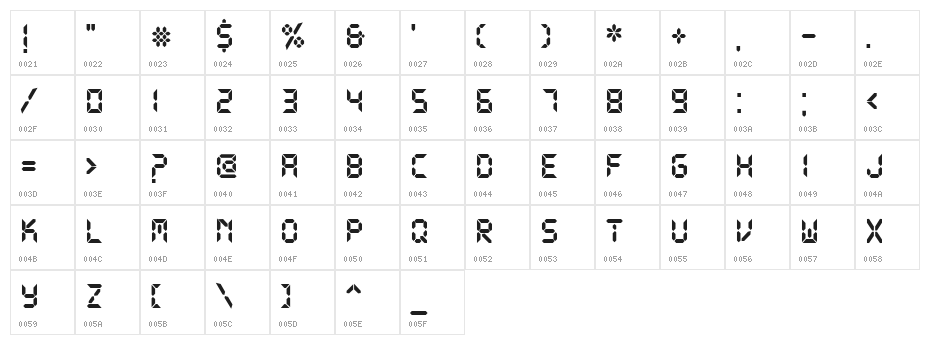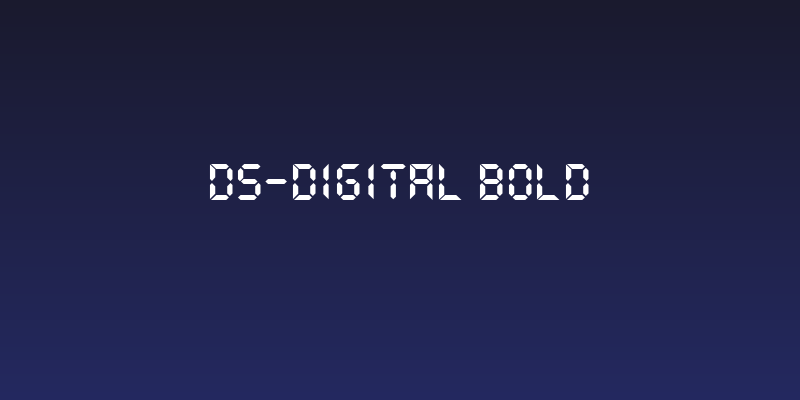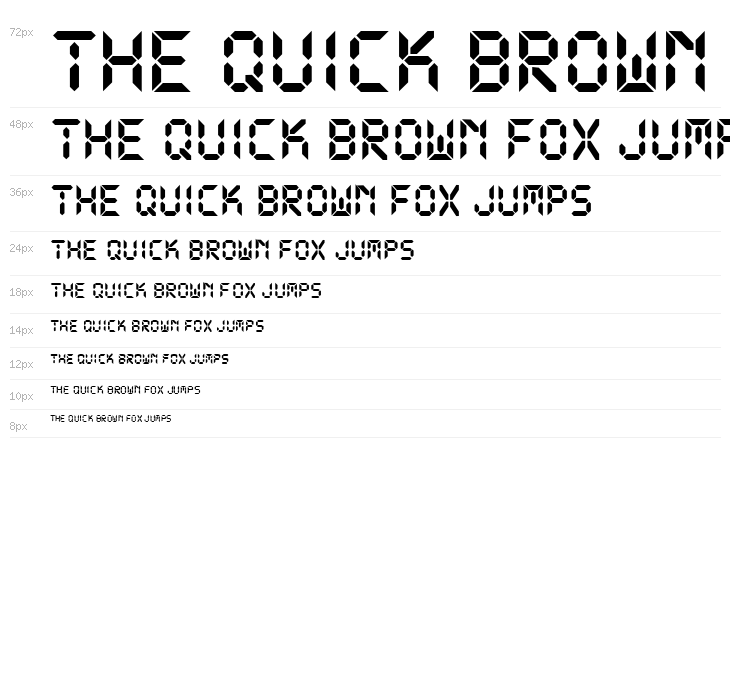
DS-Digital Bold Font
DS-Digital Bold Description
This font features a distinct digital style reminiscent of old digital clocks and displays. Each character is composed of segmented lines that mimic the appearance of LED or LCD screens. The geometric and angular design gives it a futuristic and technical feel, making it ideal for projects that require a digital or electronic aesthetic. The uppercase and lowercase letters maintain a consistent style, with numbers and special characters following the same segmented pattern. This uniformity across the character set ensures readability and a cohesive look.
| Proposed Projects | Ideal for digital-themed designs, tech-related branding, electronic interfaces, and retro-futuristic projects. |